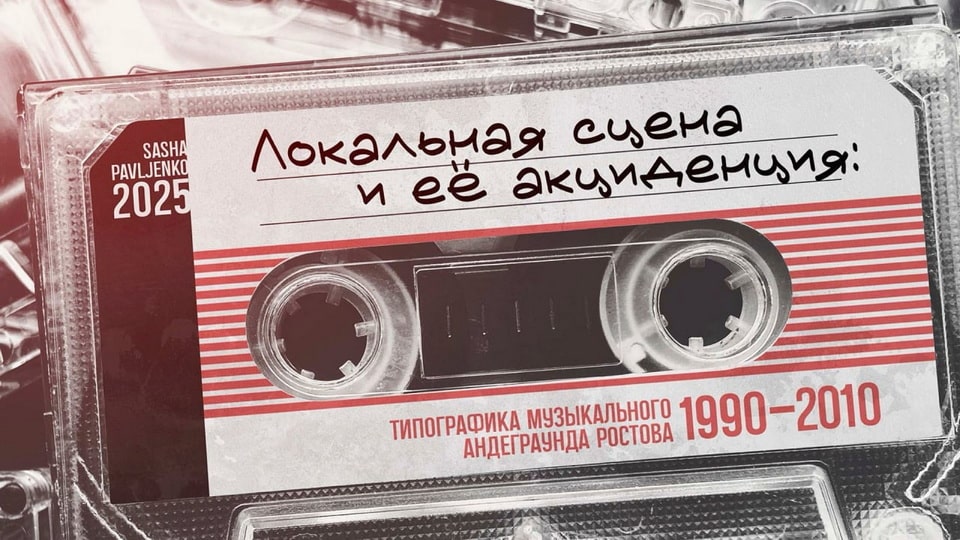
Ura Bum Bum SP Font › Fontesk – Download Grátis
Download Ura Bum Bum SP font, a handwritten typeface inspired by the personal notes of artist Fima Musailov, as seen in the Ura Boom-Boom! magazine, capturing the raw energy and creative spirit of the era.
Designer: Sasha Pavljenko